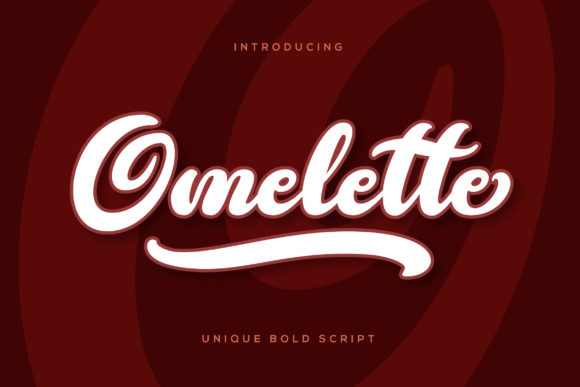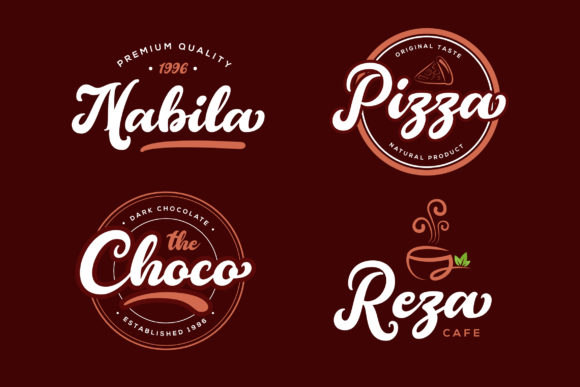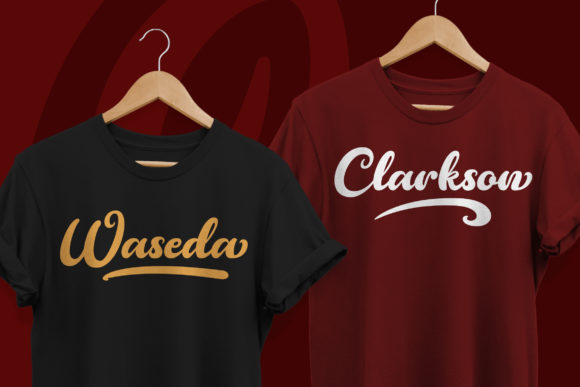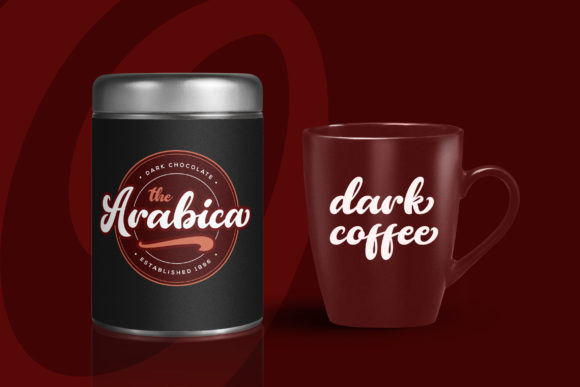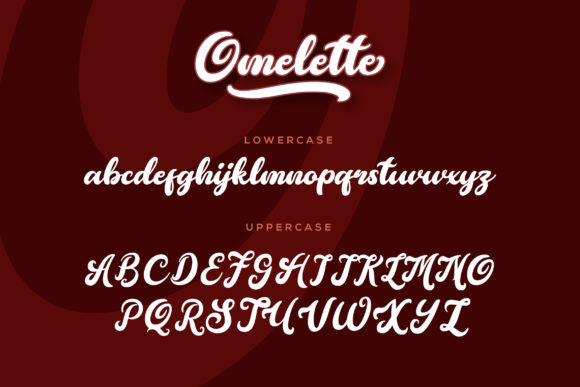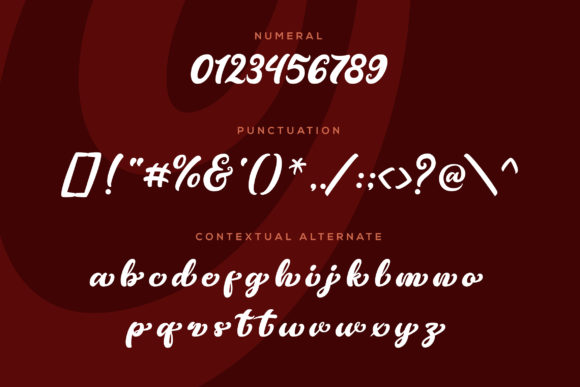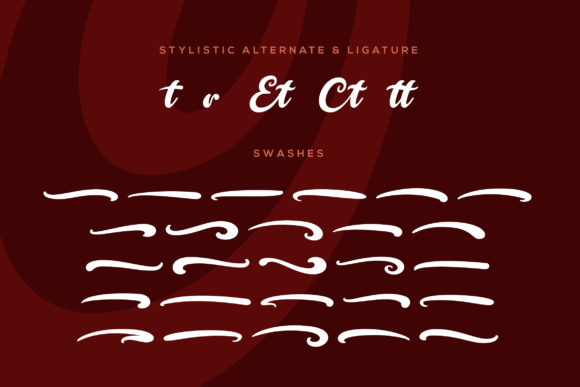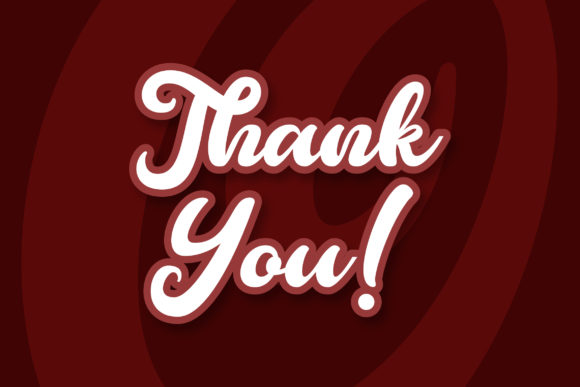
HomeScript FontsOmelette Font Script Fonts Omelette Font FacebookXPinterestWhatsApp Omelette Font Poster 2 Omelette Font Poster 3 Omelette Font Poster 4 Omelette Font Poster 5 Omelette Font Poster 6 Omelette Font Poster 7 Omelette Font Poster 8 About Omelette Font Omelette is a fun and playful handwritten font with a unique charm. Get inspired by its authentic feel. DOWNLOAD NOW People also explored Modern Farmhouse Font Reach for the Stars Font Wonder Varelia Font Someone Font Baby Boho Font Lorea Font Winterland Font Jasper Font Newspaper Font 288 0 TagsOmelette Font Previous articleWensfort FontNext articleSilver King Font LEAVE A REPLY Cancel reply Comment: Please enter your comment! Name:* Please enter your name here Email:* You have entered an incorrect email address! Please enter your email address here Website: Save my name, email, and website in this browser for the next time I comment. Personal Use Free Bitcrusher Condensed Bold Personal Use Free Read more about this font BD Medled Personal Use Free Read more about this font Nugo Sans Personal Use Free Read more about this font Pumpkins Candles Personal Use Free Read more about this font BLOG To increase your work productivity, choose the most readable fonts. In today's fast-paced work environment, where digital communication and information consumption are integral to our daily routines, the choice of fonts can significantly impact... How to Install and Use Fonts on Windows, macOS, and Web Projects Free vs Paid Fonts: Why Investing in Premium Fonts Is Worth It Where to Buy American Fonts Online in 2024